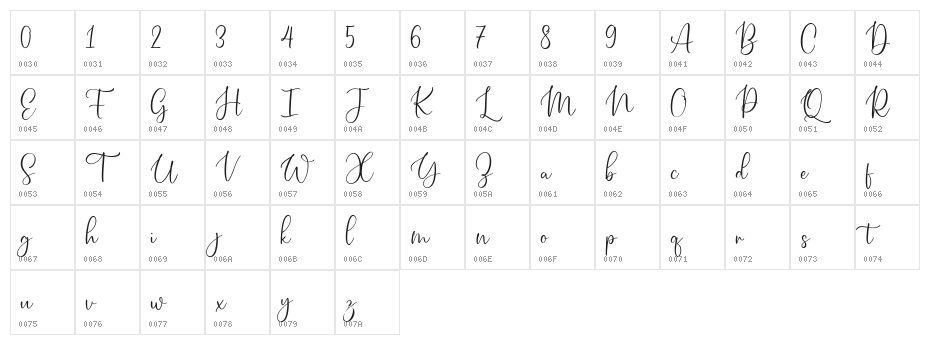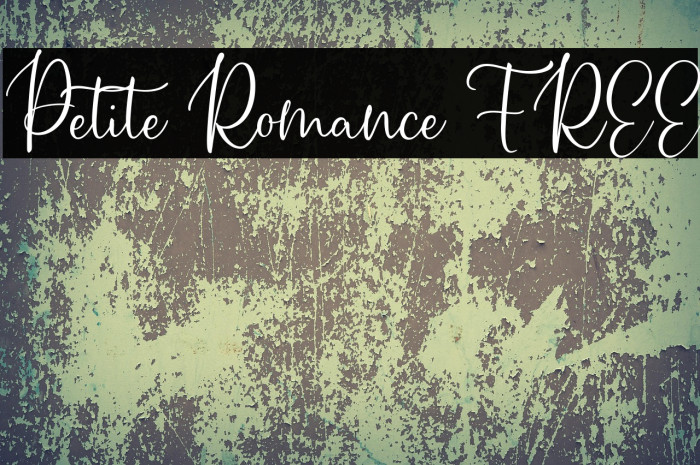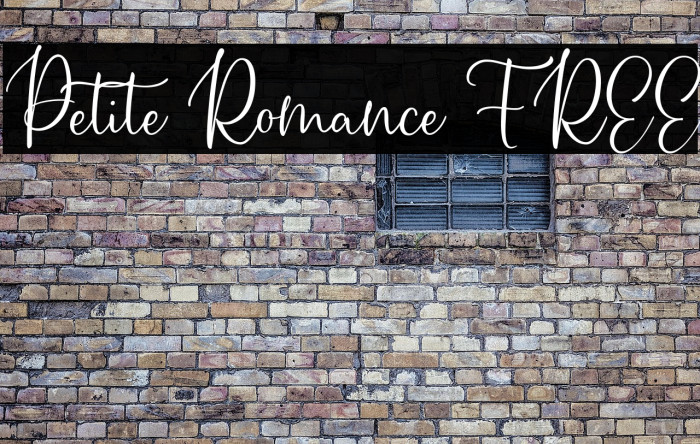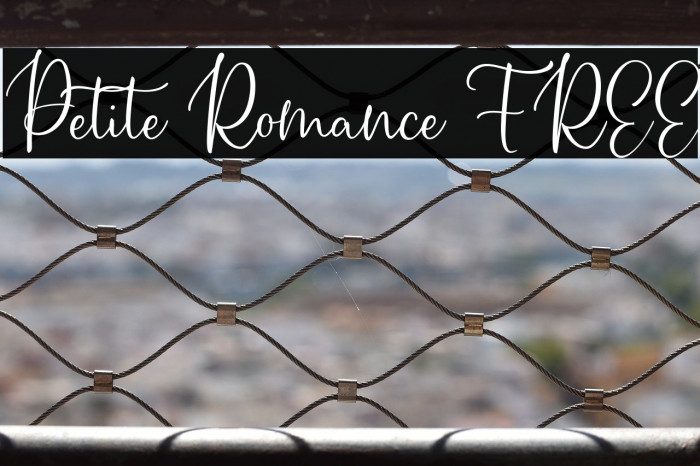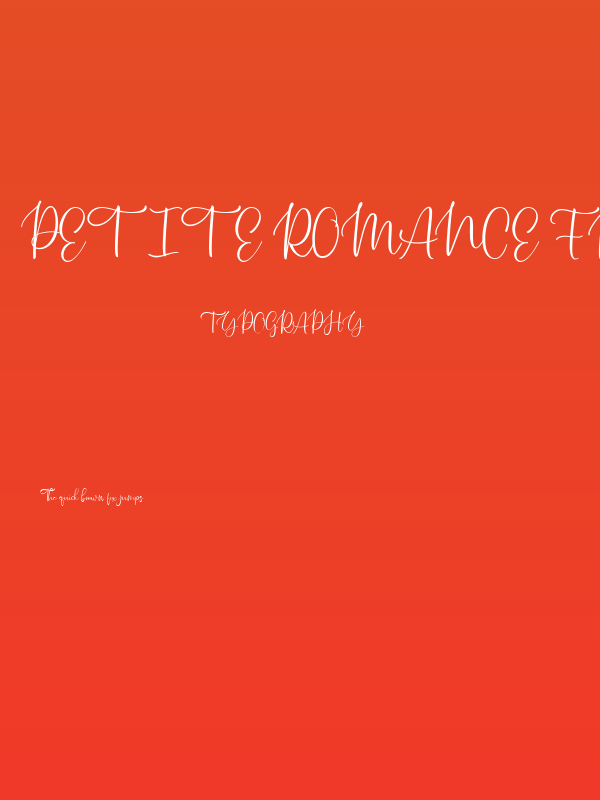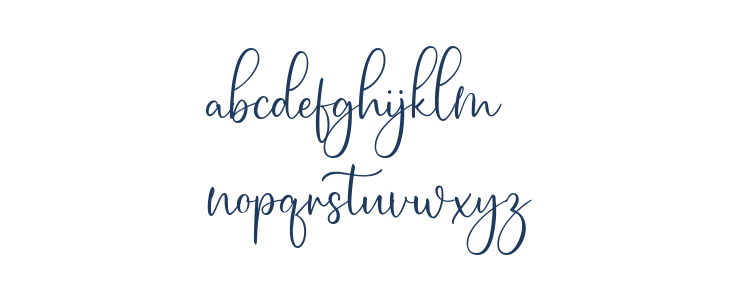
Petite Romance FREE Font
Petite Romance FREE Description
This elegant script font features a flowing, cursive style with delicate, sweeping strokes that create a sense of romance and sophistication. The uppercase letters are tall and graceful, with intricate loops and flourishes that add a decorative touch. The lowercase letters maintain a consistent flow, with smooth connections between characters, enhancing readability while preserving the font's artistic flair. The numerals are designed to match the overall aesthetic, with a slightly more restrained style to ensure clarity. Special characters are thoughtfully integrated, maintaining the font's cohesive appearance. This font is perfect for projects that require a touch of elegance and charm.
| Overall Style | Elegant, Romantic |
| Use Case | Logos, Invitations, Decorative Text |
| Proposed Projects | Ideal for wedding invitations, greeting cards, branding, and elegant packaging designs. |